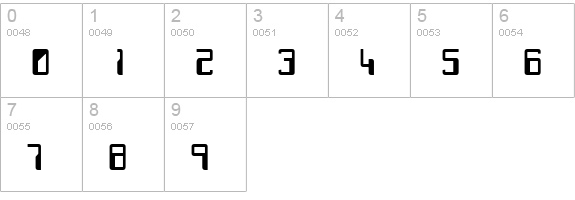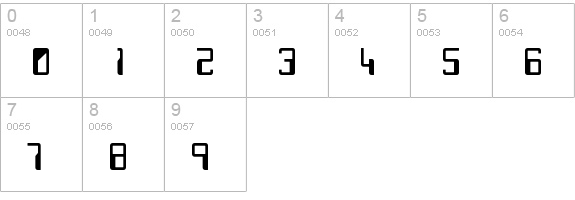
Future Regular is the standard, neutral variant in the Future typeface family \xE2\x80\x94 well suited to general body text, paragraphs, and standard typographic work.
Discover the sleek and modern elegance of Future Regular font, the perfect choice for any design project seeking a contemporary touch. With its clean lines and balanced proportions, this font exudes a sense of professionalism and sophistication. Future Regular is a versatile typeface that can be used for a wide range of applications, from branding to editorial design. What's even better is that Future Regular is available for free download at FontsMarket.com. This means you can easily incorporate this stylish font into your projects without any cost. Don't miss out on the opportunity to enhance your designs with the timeless appeal of Future Regular font. Download it today and elevate your creative work to the next level.